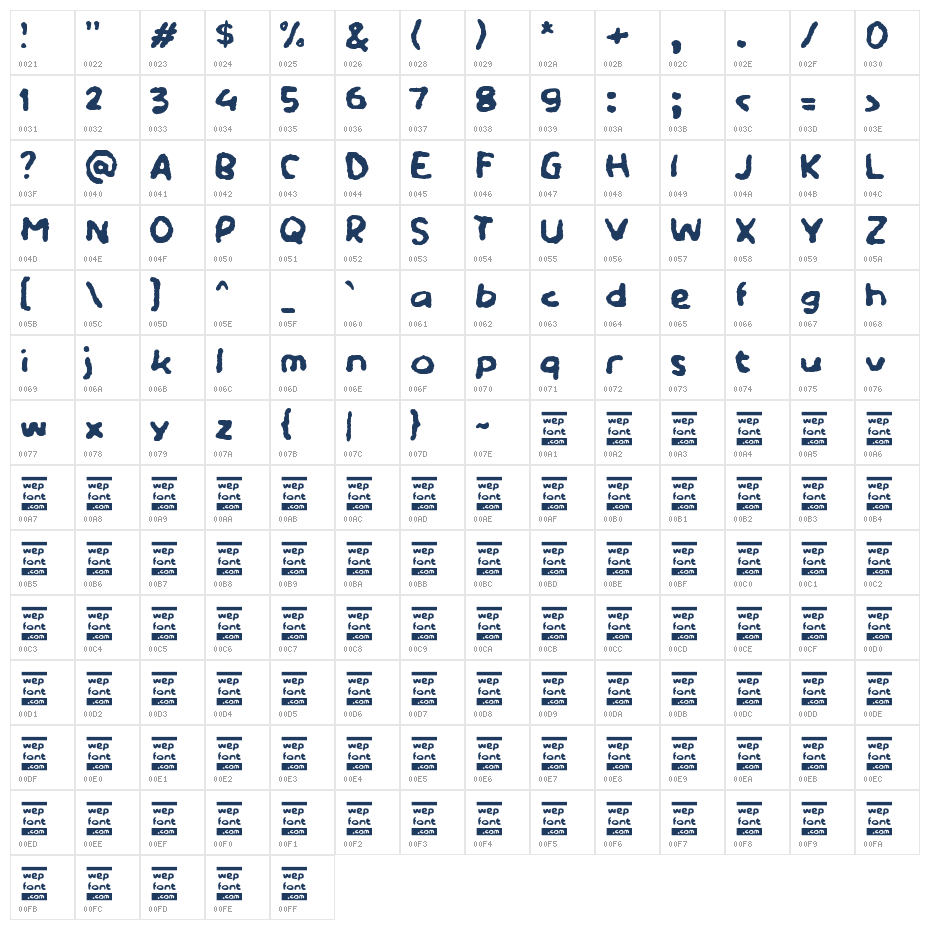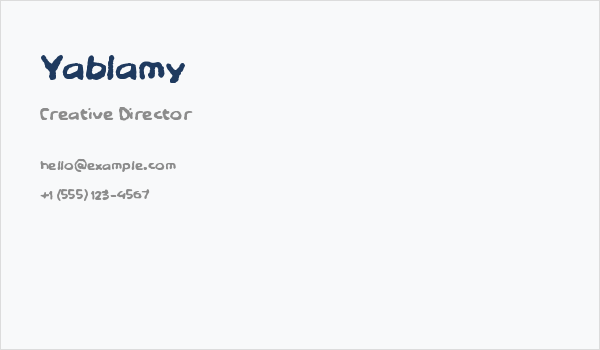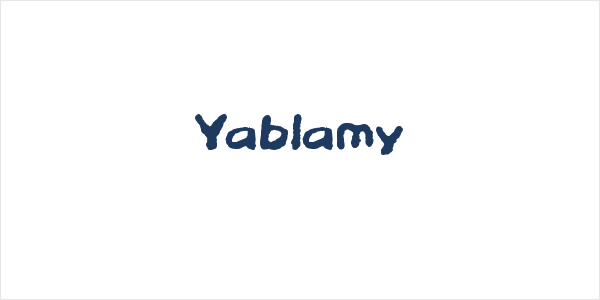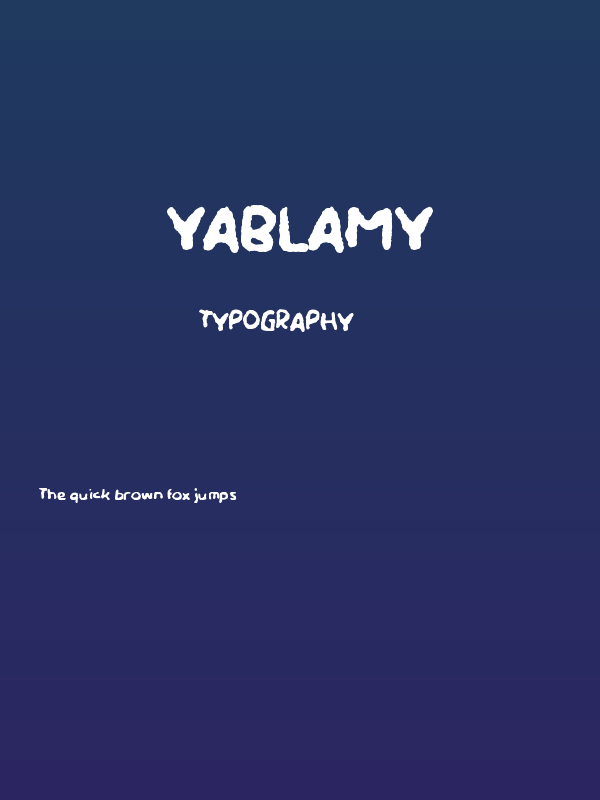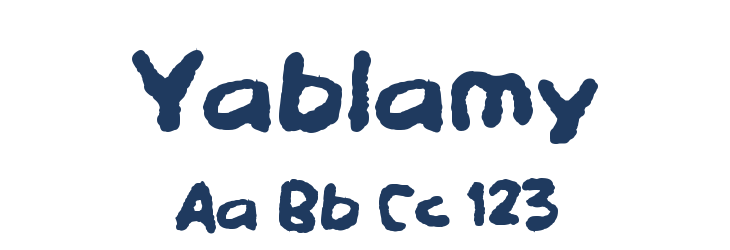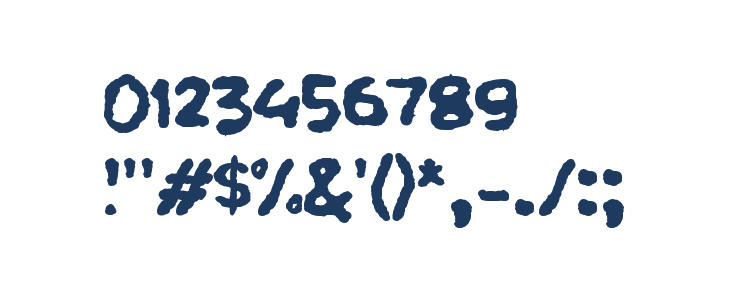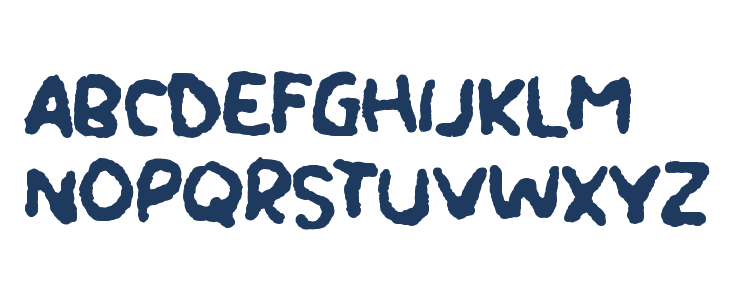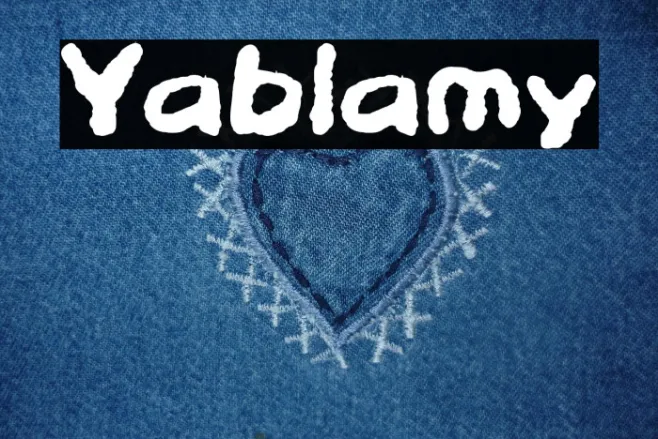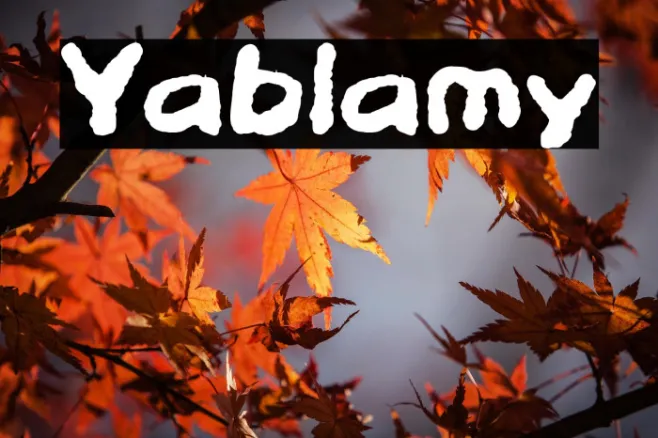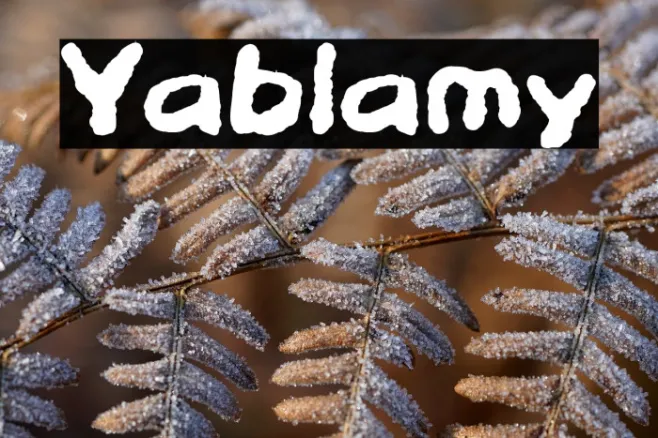
Yablamy Font
Yablamy Description
A playful, handwritten style font with a textured, brush-like appearance, featuring both uppercase and lowercase letters, numbers, and special characters.
YABLAMY UPPERCASE
YABLAMY LOWERCASE
YABLAMY OTHER CHARS
| Overall Style | Casual, Playful, Handcrafted |
| Use Case | Headlines, Posters, Creative projects, Social media graphics |